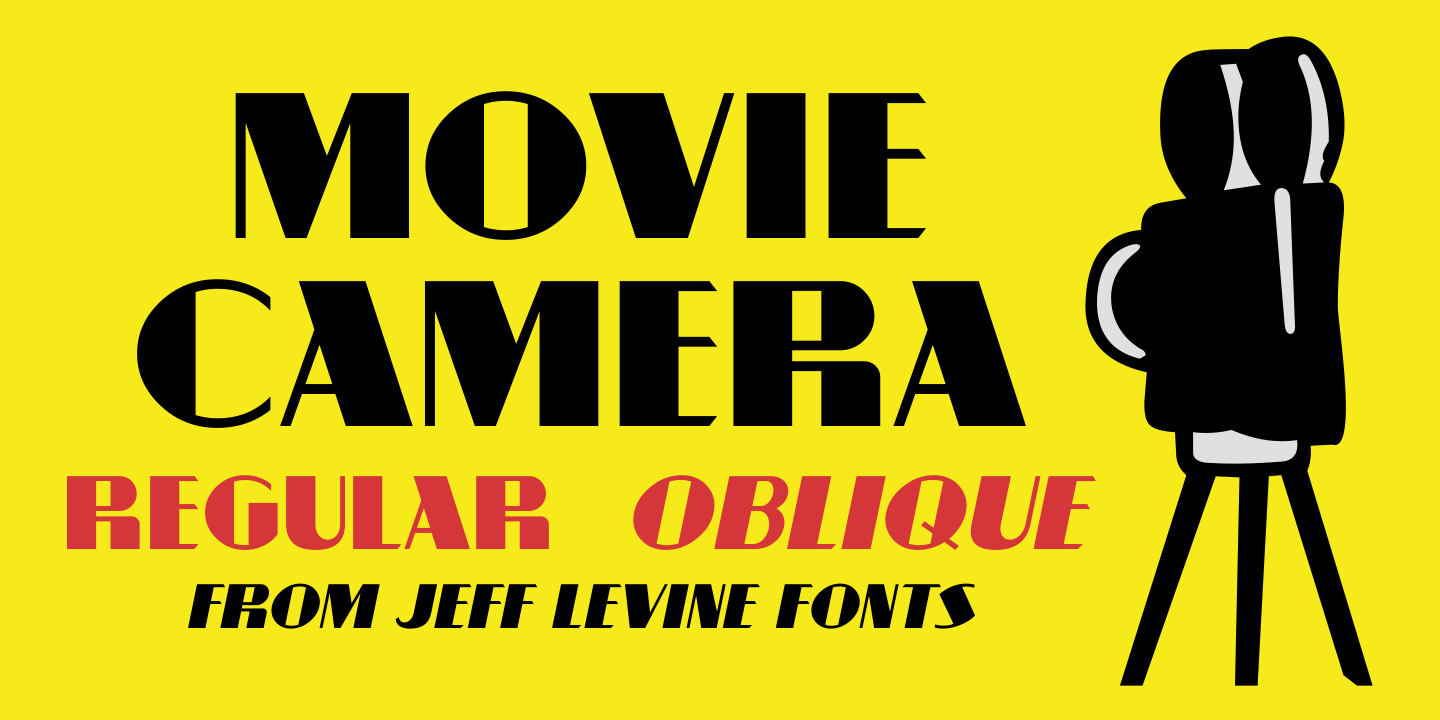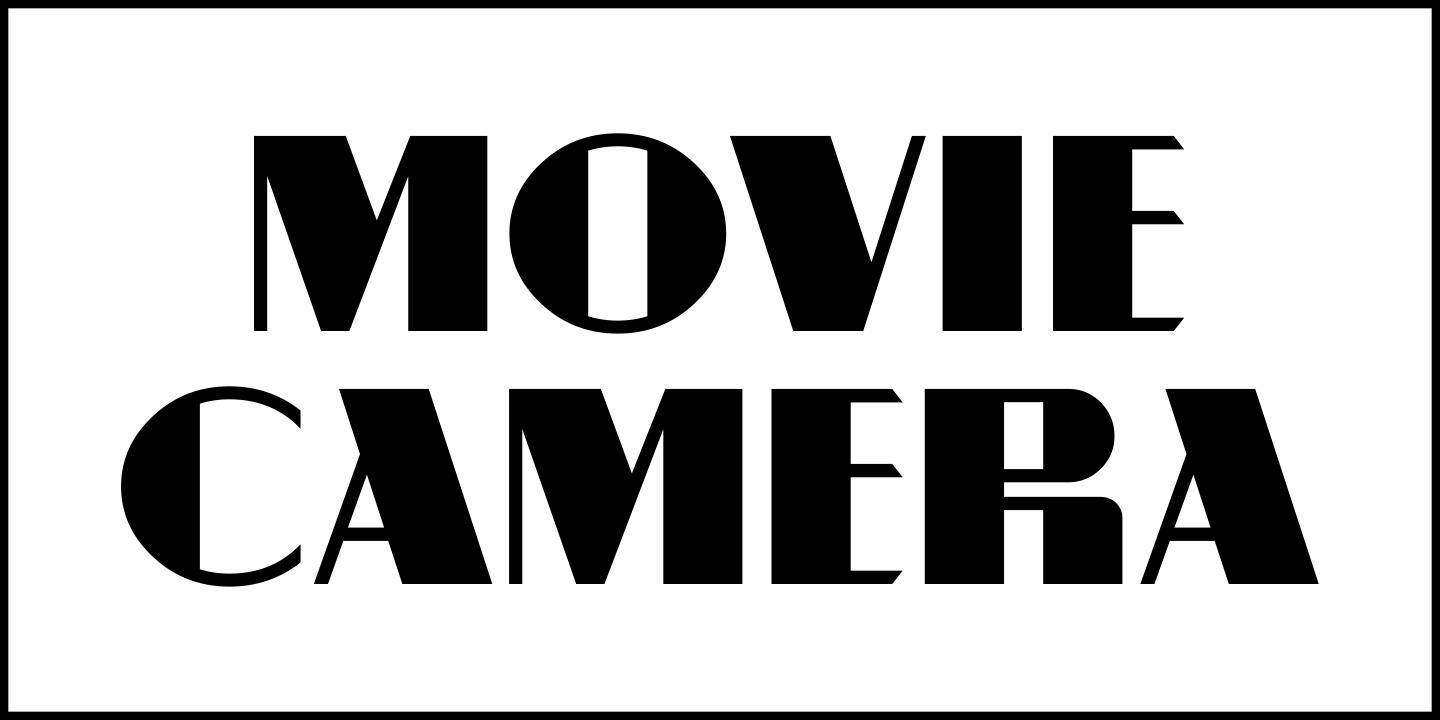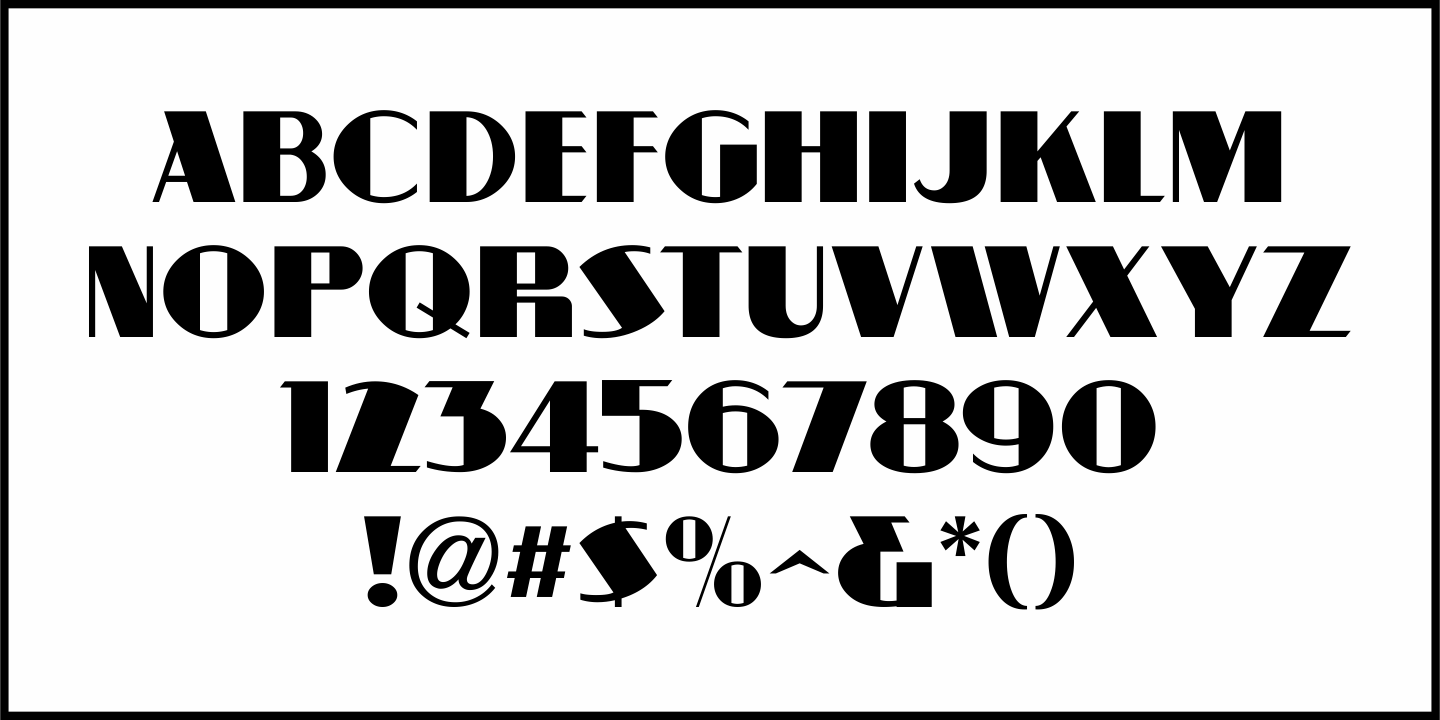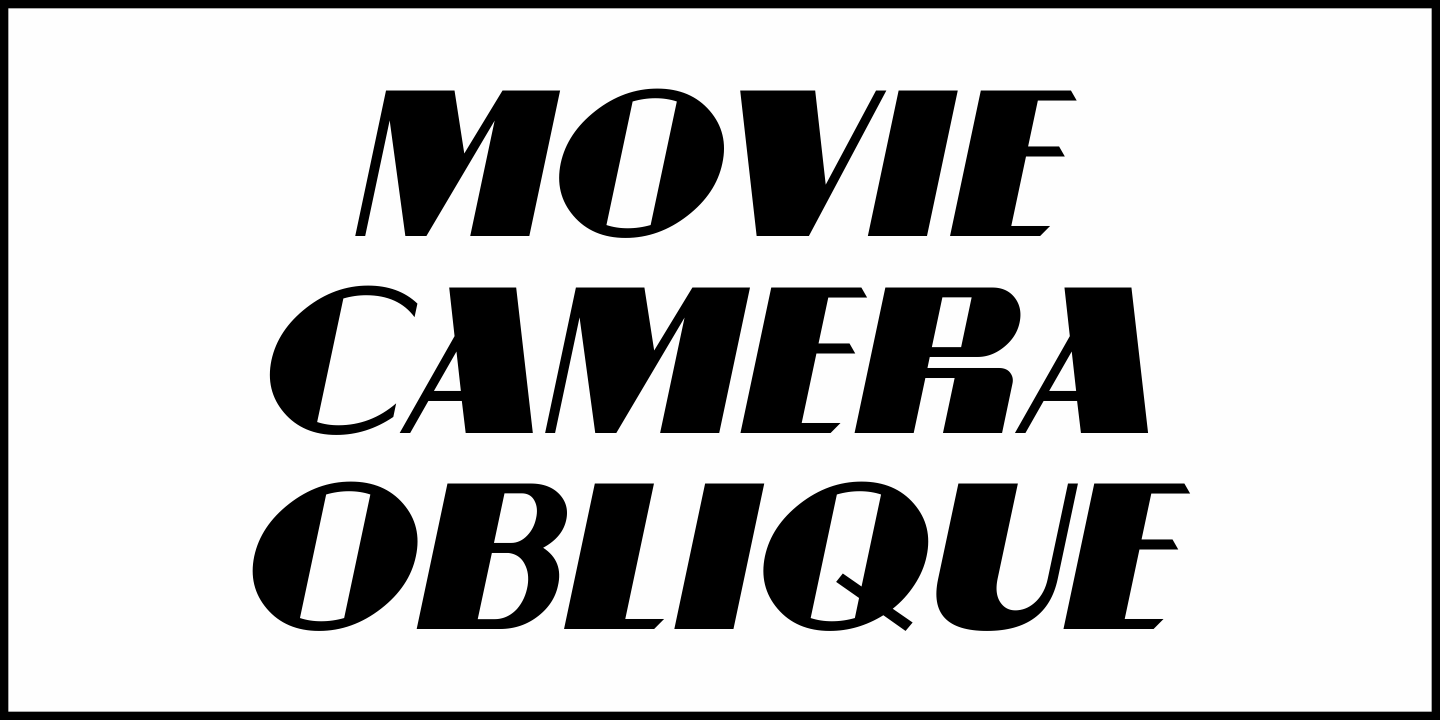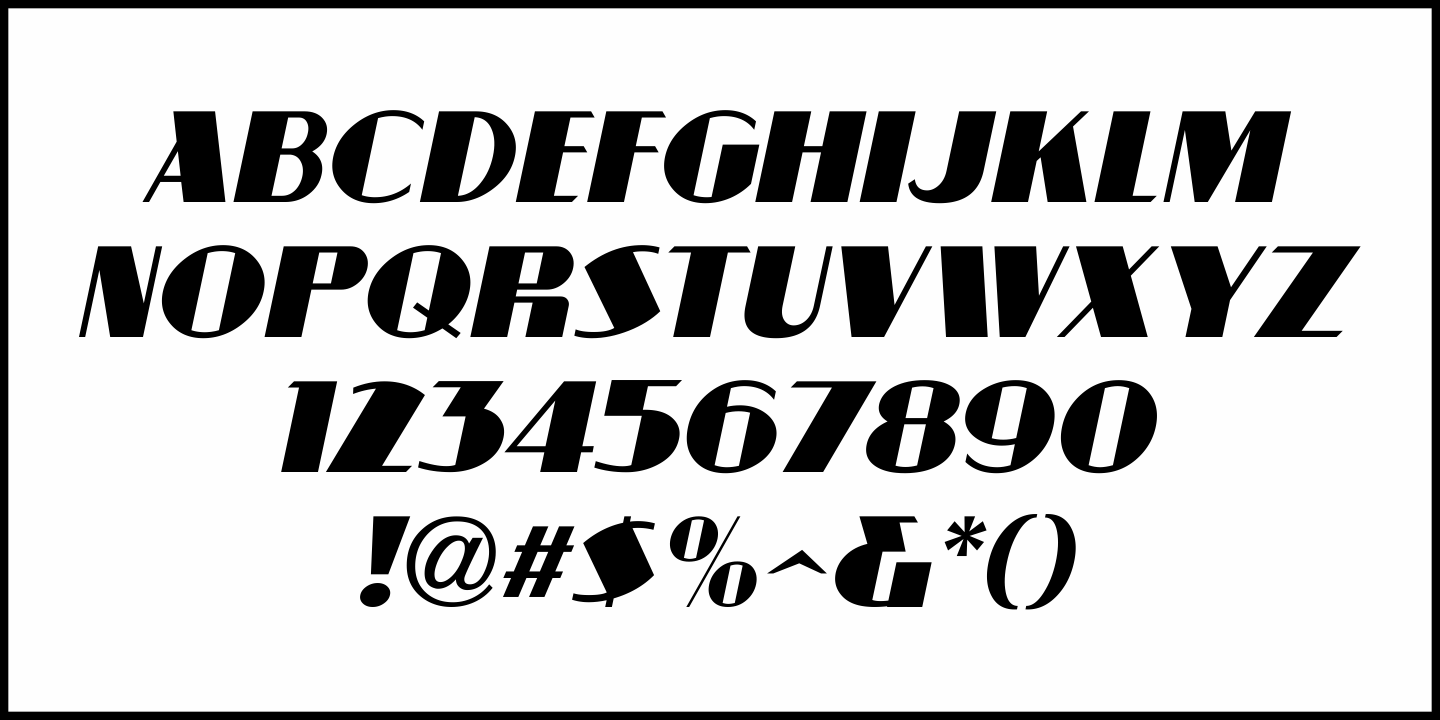
Movie Camera
In the May 11, 1929 issue of Exhibitors Herald World is an ad for Enterprise Optical, featuring sans serif lettering reminiscent of the popular 'Broadway' style of thick-and-thin contrasting strokes.
This hand lettered Art Deco type design is now available as Movie Camera JNL in both regular and oblique versions.